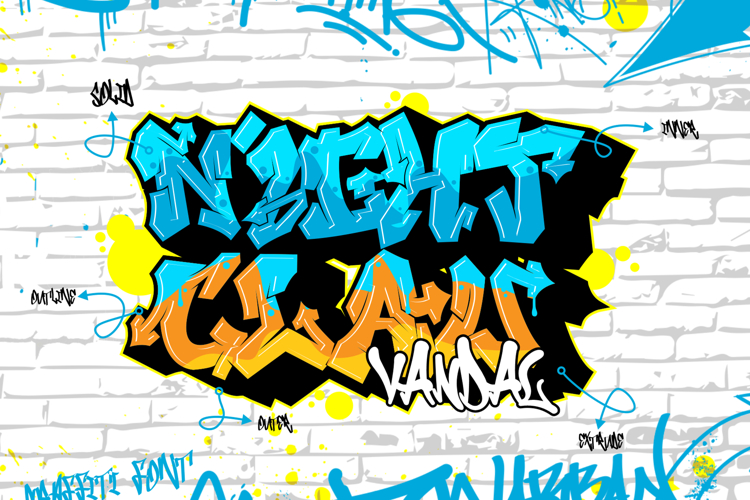
Nightclaw Vandal | 5 Layered Graffiti Font | Wildstyle
Unleash pure chaos and creativity with Nightclaw Vandal, a multi-layered graffiti font designed to dominate the urban design space. Featuring five powerful font layers, this all-caps typeface is built for bold headlines, posters, murals, album covers, and digital artwork that demand instant attention.
With its raw brush energy, stylized details, and explosive stroke work, Nightclaw Vandal lets designers go all-in with 3D effects, shadows, outlines, and inner fills—right out of the box.
This font doesn’t just look rebellious—it’s built for designers who want control, depth, and impact in every layer.
Use them layered or standalone—each style works perfectly for unique graffiti effects and layered type designs.
Key Features:
- All-Caps Display Typeface with Urban Graffiti Style
- 5 Stackable Layers for Dimensional Designs
Why Designers Love Nightclaw Vandal: Designers love Nightclaw Vandal for its total creative freedom—whether you want a loud solid style, gritty outline, or a stacked 3D combination, every layer fits like a glove. The high-impact graffiti aesthetic is perfect for projects that need personality, punch, and presence.
Nightclaw isn’t just a font—it’s a full visual toolkit that turns ordinary titles into explosive centerpieces.
Let Your Typography Break the Rules When basic fonts fall flat, Nightclaw Vandal rises. With 5 customizable layers, full language support, and street-inspired aggression, this graffiti font lets you craft jaw-dropping visuals with ease. Perfect for bold digital covers, attention-grabbing graphics, or rebellious posters that stop people in their tracks.